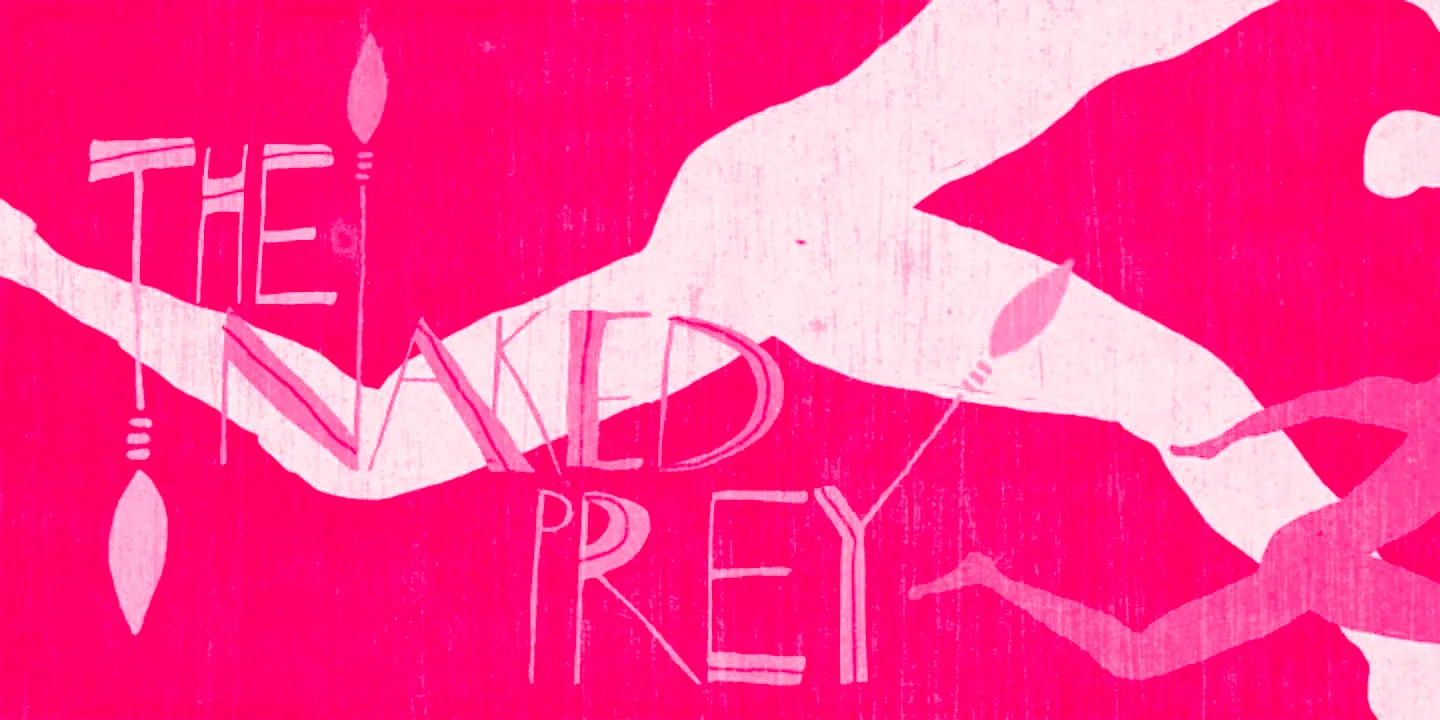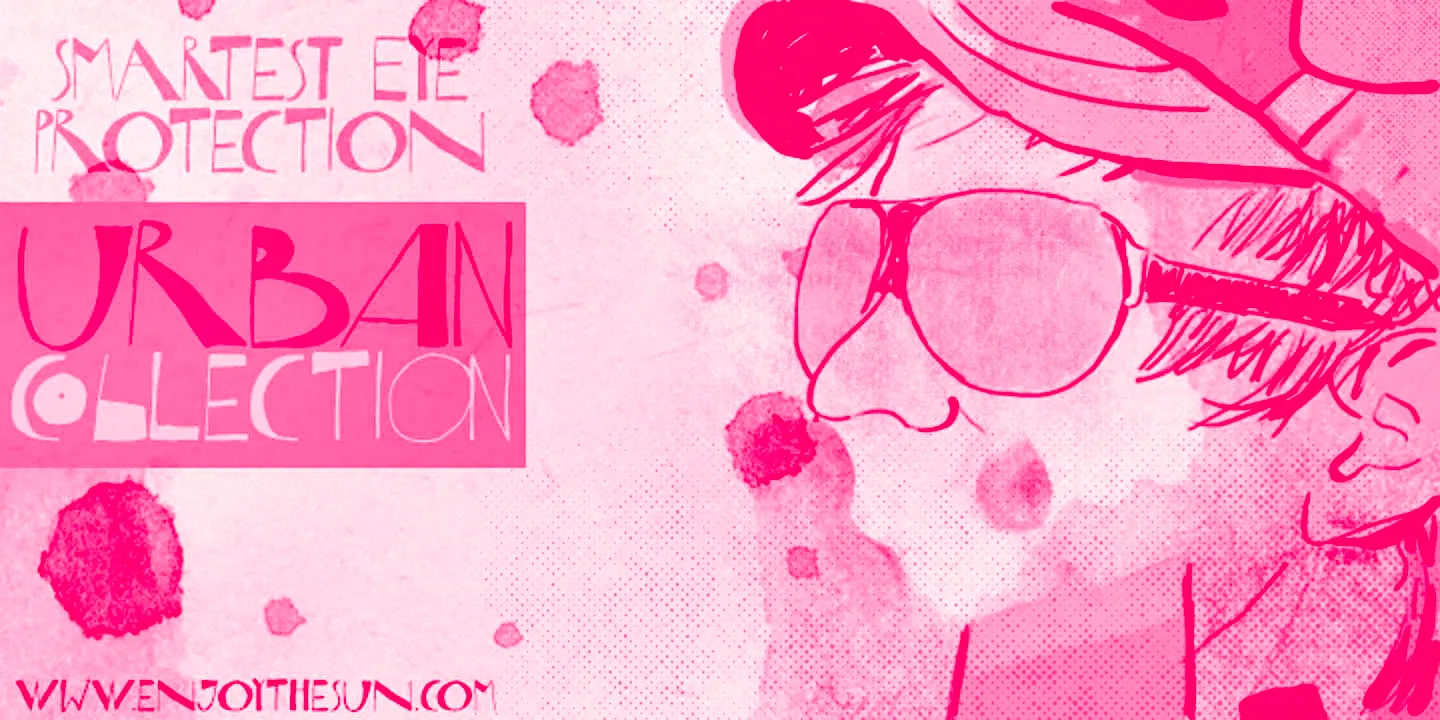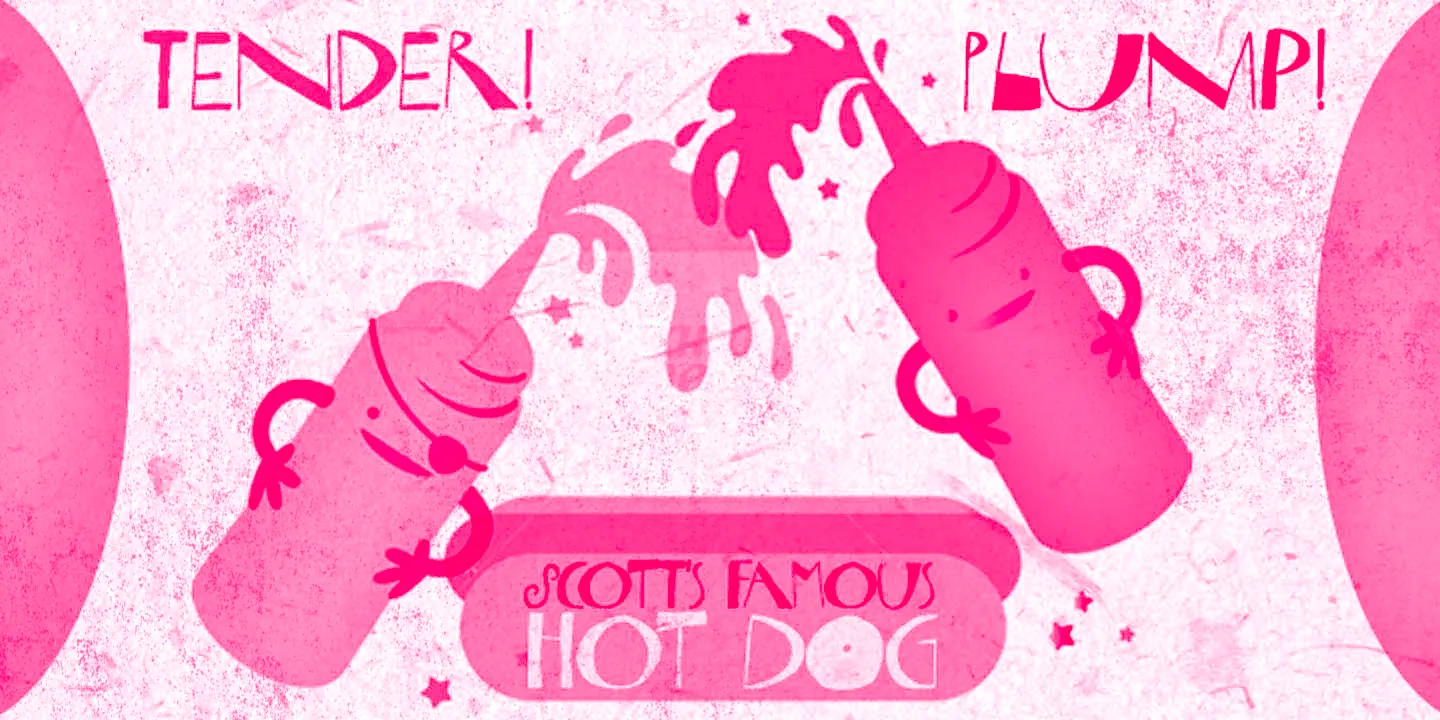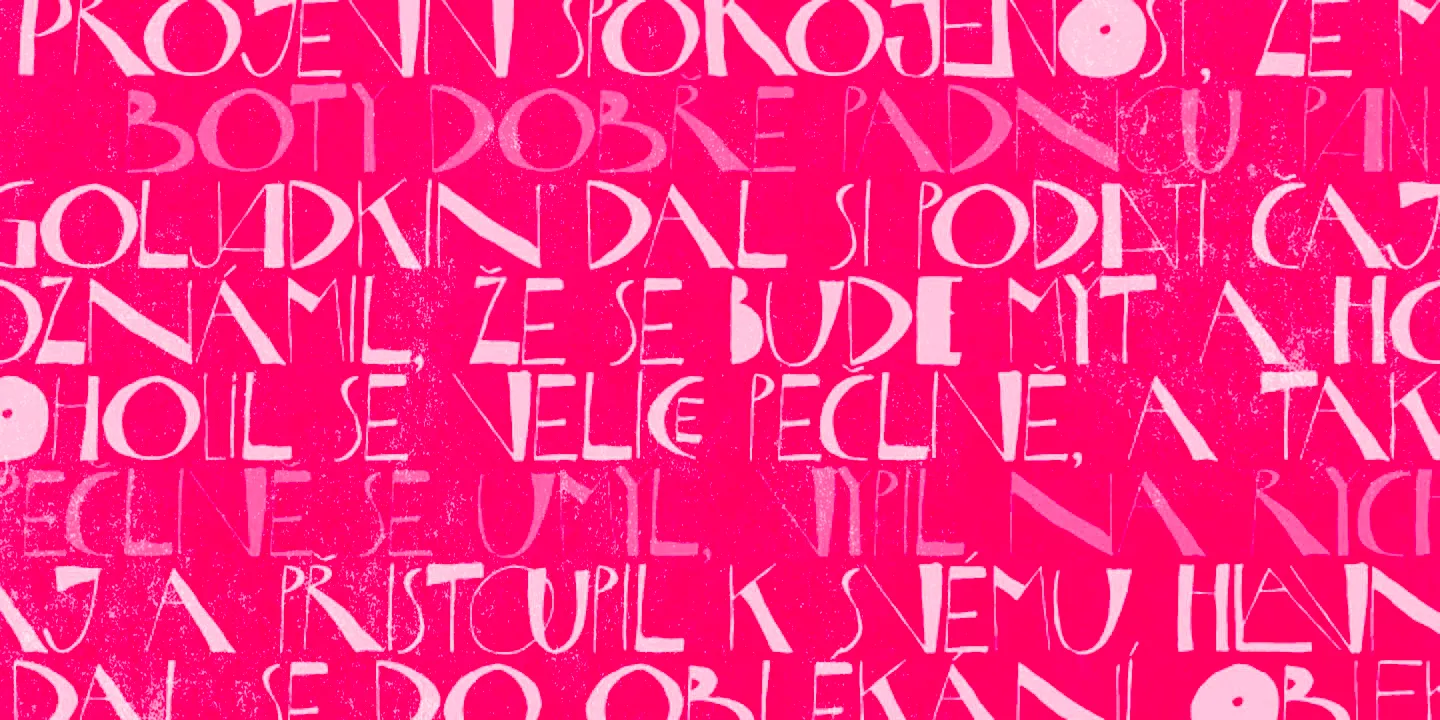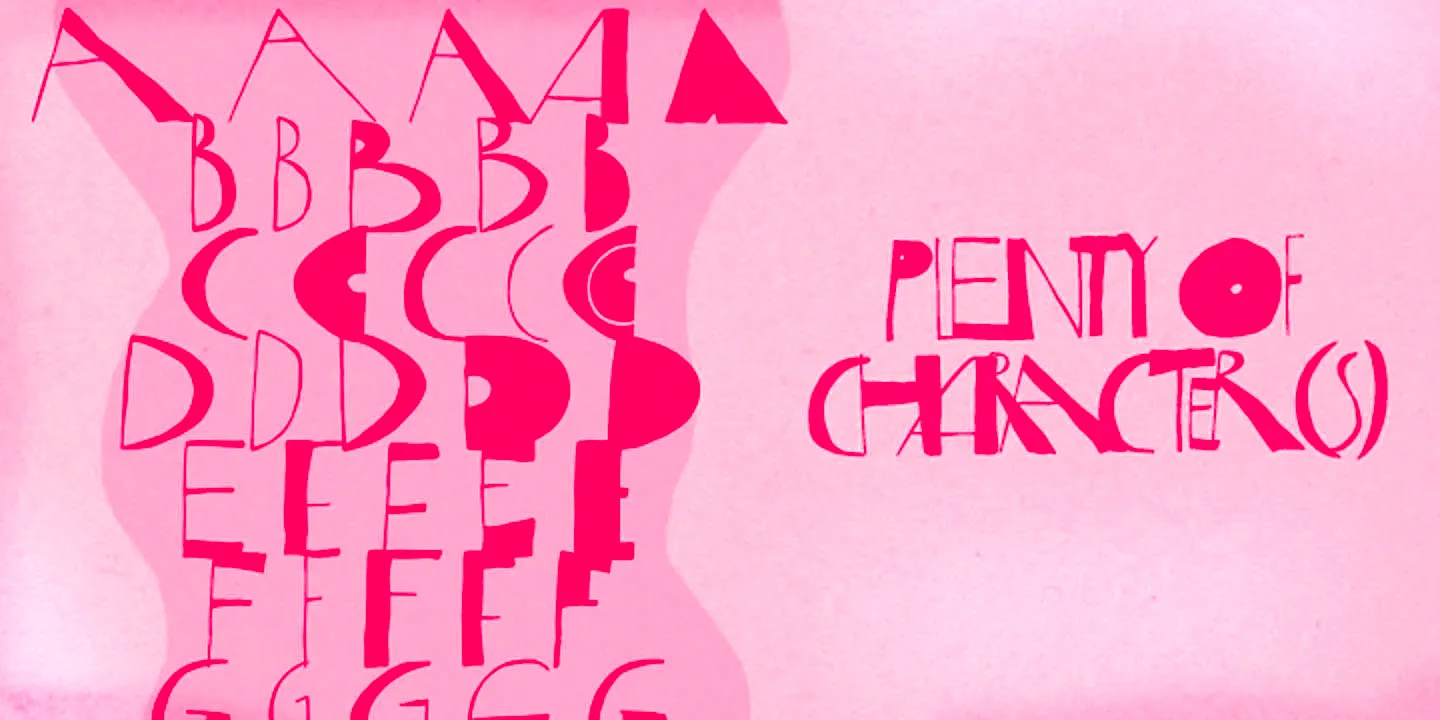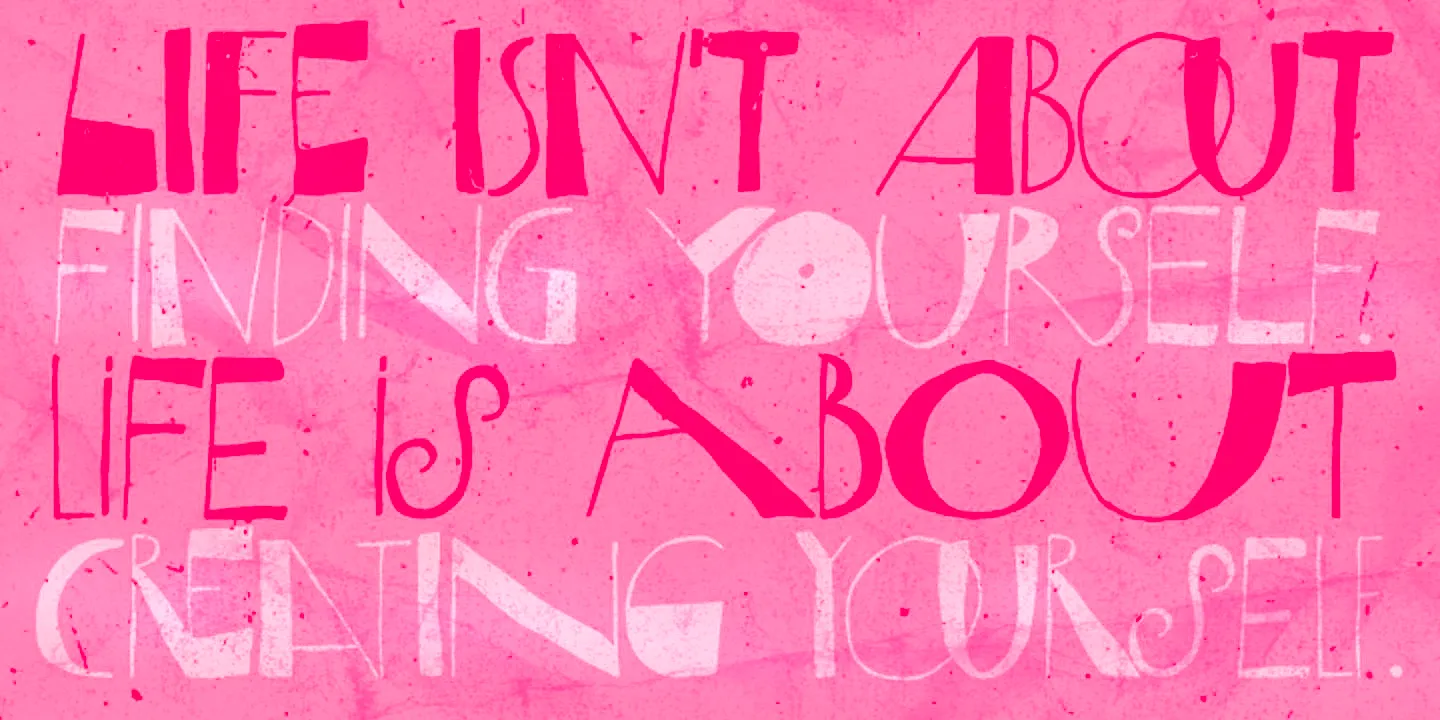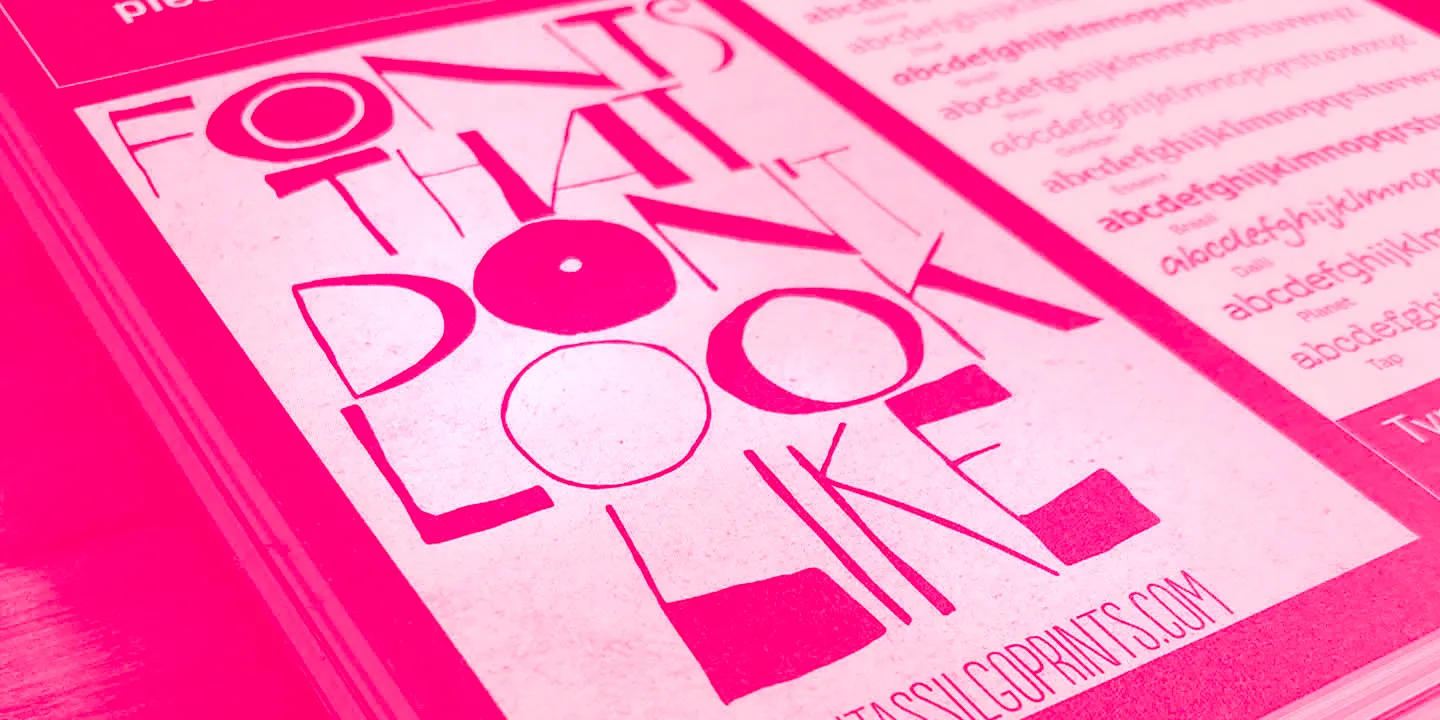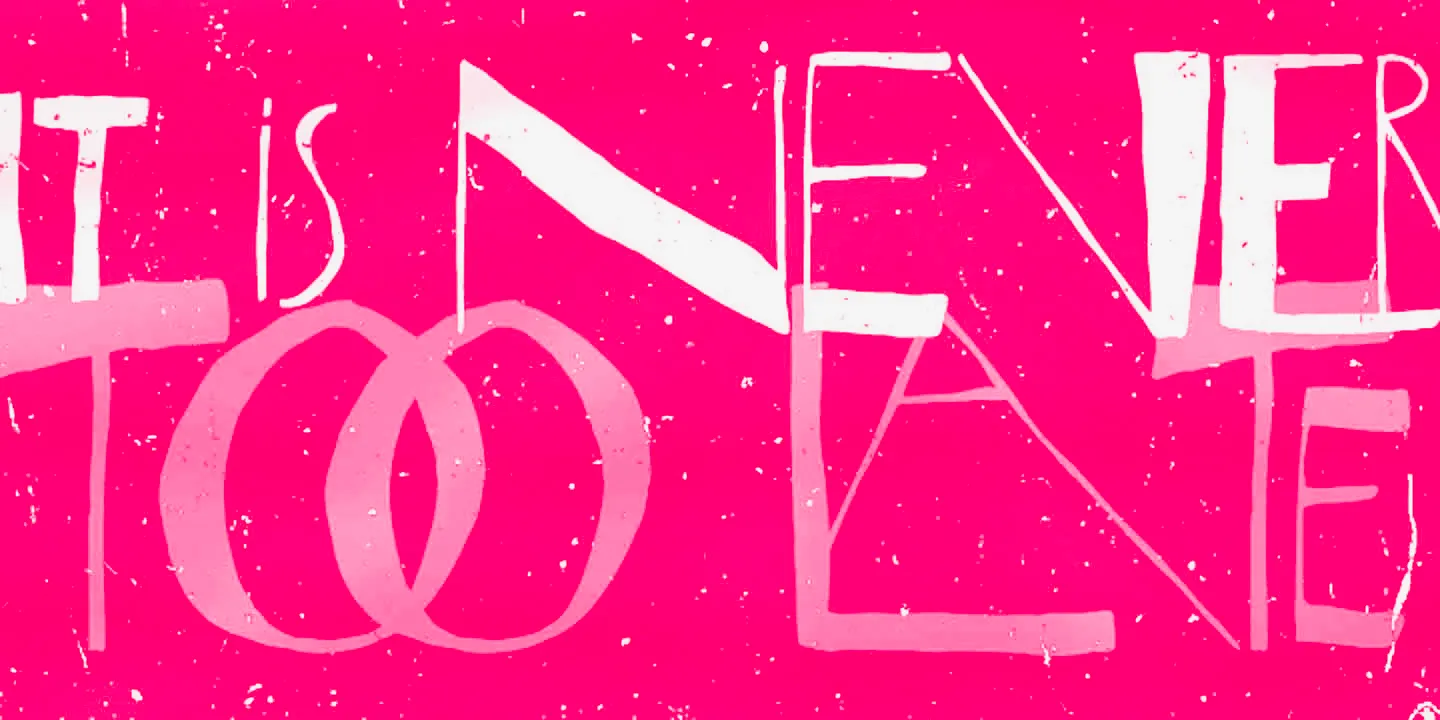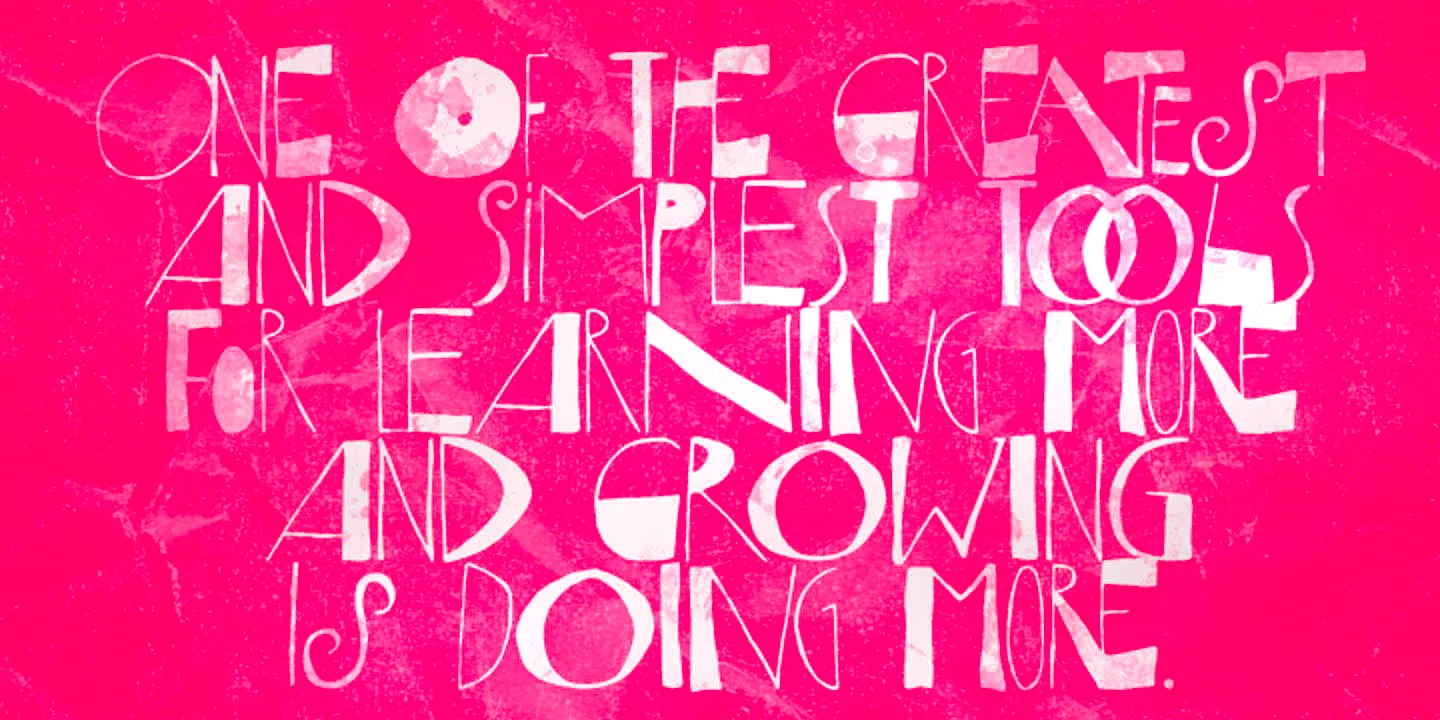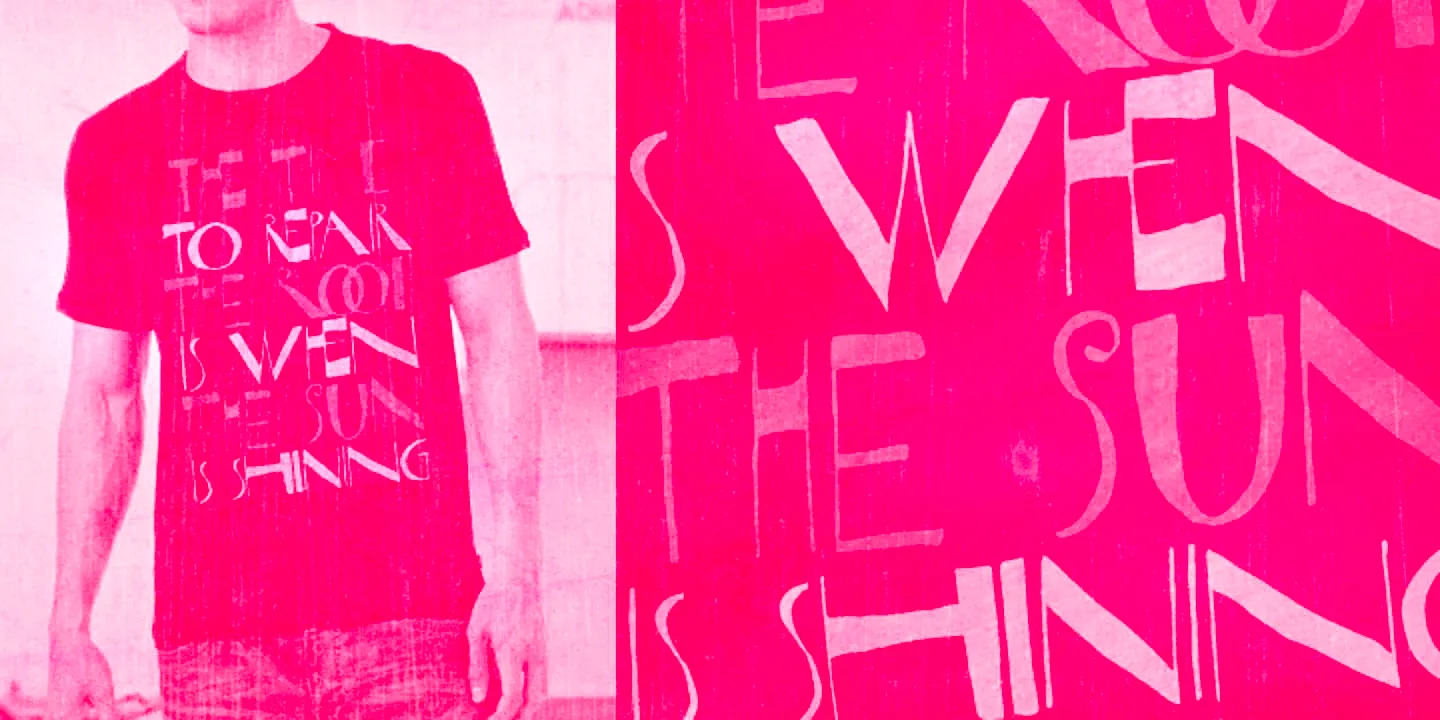
Nova Horst Font
Nova Horst
Nova Horst is a highly original font inspired by the etchings of the extraordinary artist and printmaker Horst Janssen. Nova Horst — an amplified version of Horst — keeps the original font’s extraordinary wildness but is now enriched with a new set of alternates, a handy set of ornaments, and loads of unpredictable overlapping glyphs. Nova Horst is ideal for adding an energizing blend of eccentricity to branding and headlines. But be warned: this one is quite addictive!
• Discretionary Ligatures
• Ornaments